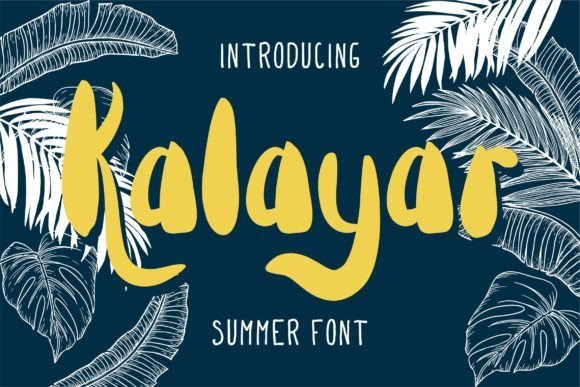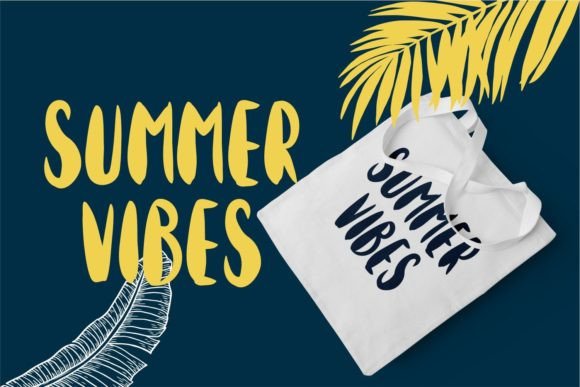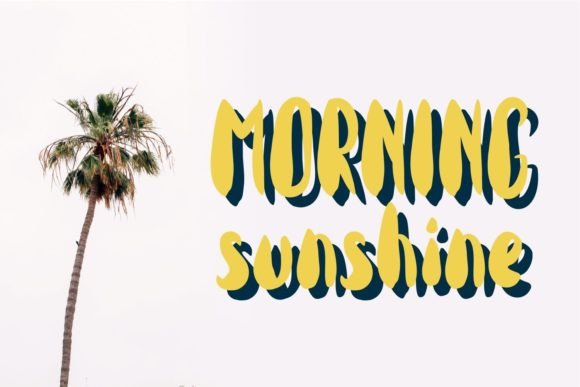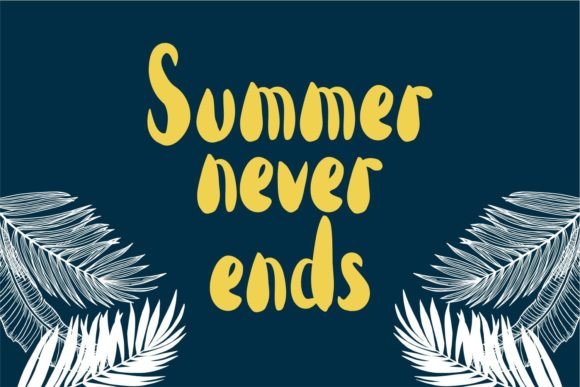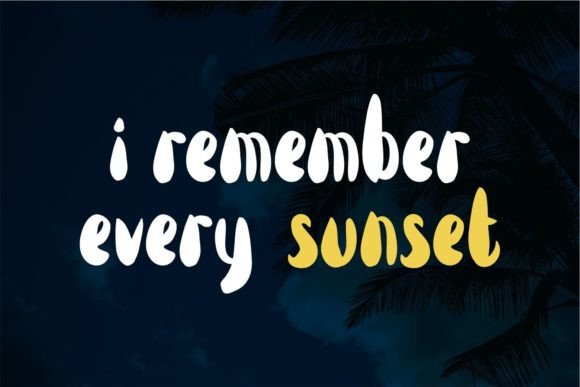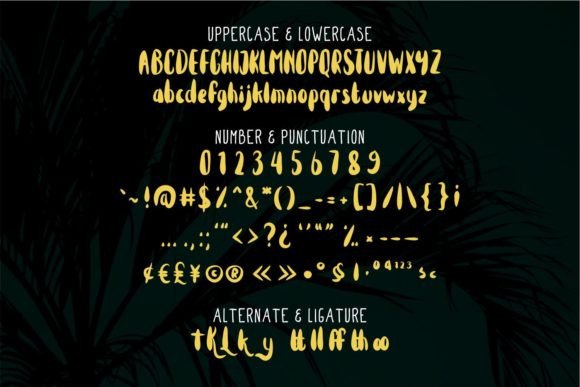
The Perfect Font for Making a Statement
Have you ever been brainstorming ideas for a new project, and suddenly, a spark of creativity hits you? That’s exactly what happened when designers first laid eyes on the Kalayar Font. Its bold and playful script display font is the perfect combination of fun and energy, making it a must-have for any designer looking to add a touch of whimsy to their designs.
Kalayar Font is more than just a font – it’s a statement piece. With its flowing letterforms and unique swashes, it’s sure to grab attention and leave a lasting impression. Whether you’re working on branding, packaging, or any other project that needs a bold and fun font, Kalayar Font is the perfect choice. Its versatility and playfulness make it a valuable asset for designers looking to add some personality to their work.
Kalayar Font Key Features
- Font Family: Kalayar is a typeface with a unique blend of traditional and modern design elements.
- Unique Characteristics: Kalayar font features a distinctive combination of curved and angular lines, making it suitable for a variety of design applications.
- Language Support: Kalayar font supports multiple languages, including English, Malayalam, and other Indian languages.
- Font Weight and Style: Kalayar font is available in various weights and styles, including regular, bold, italic, and bold italic.
Kalayar Font Review
As a designer, I’ve had the chance to work with various fonts, and the Kalayar font is one that has caught my attention. Here’s my honest review.
- Unique design: Kalayar font has a distinct and modern design that sets it apart from other fonts in its category.
- Good legibility: The font is easy to read, even at smaller font sizes, which is a must-have for any font.
- Support for multiple languages: Kalayar font supports a wide range of languages, making it a great choice for international projects.
- Limited character set: While the font supports multiple languages, its character set is limited, which may cause issues with special characters or emojis.
- Not suitable for body text: Kalayar font is best used for headings or titles, as its design may not be suitable for large blocks of body text.
- No italic or bold versions: The font only comes in a regular version, which may limit its usability in certain situations.
The Kalayar font is a solid choice for designers who want a unique and modern font for their projects. While it has some limitations, its good legibility and support for multiple languages make it a great option for headings or titles. However, it may not be the best choice for body text or projects that require a wide range of special characters or emojis.
Use the Kalayar font to create unique and eye-catching headings and titles.
Experiment with different font sizes and colors to create visual interest and contrast.
Combine the Kalayar font with other fonts and design elements to create a cohesive and professional design.
The Kalayar font is perfect for:
Creative and artistic designs
Headings and titles
Visual interest and emphasis